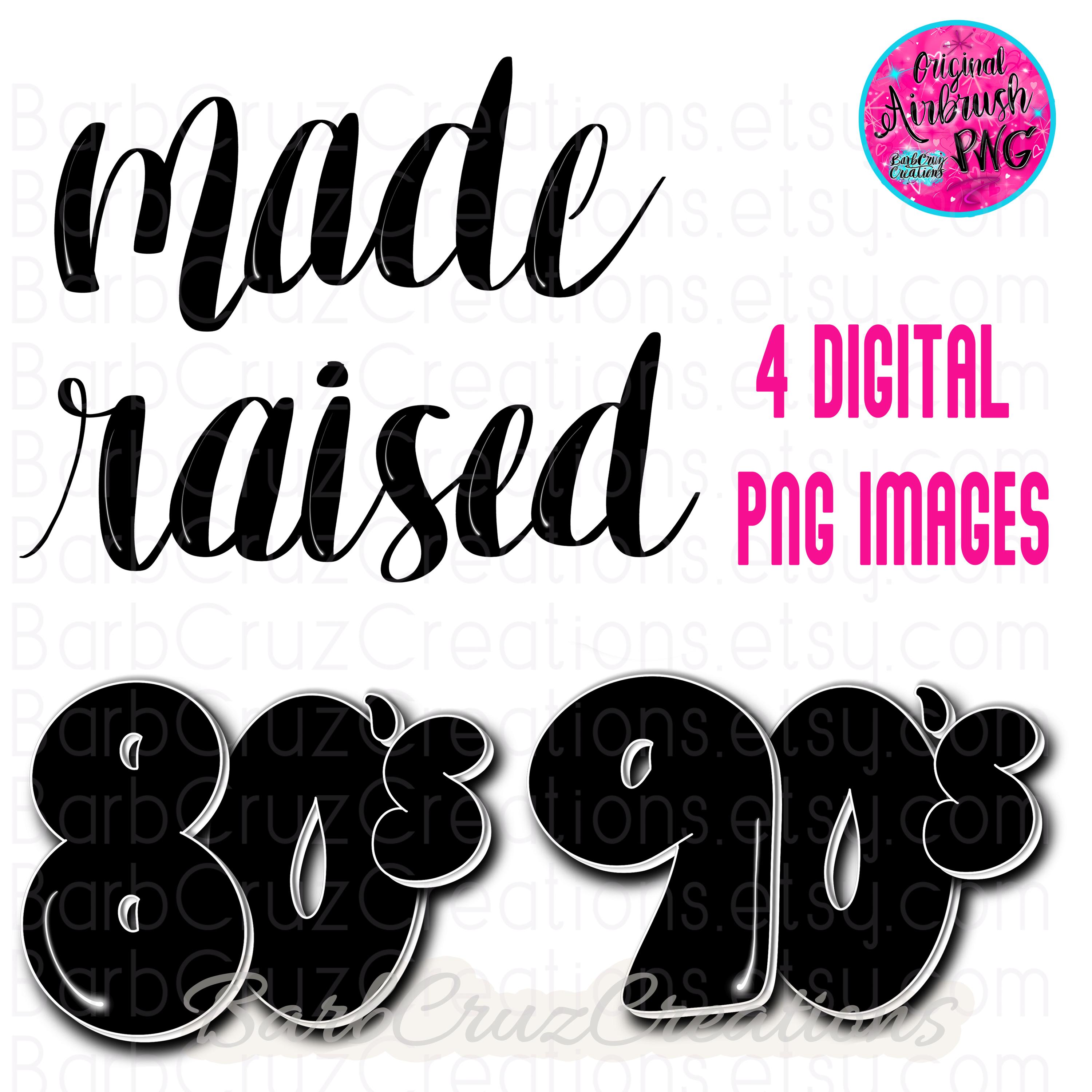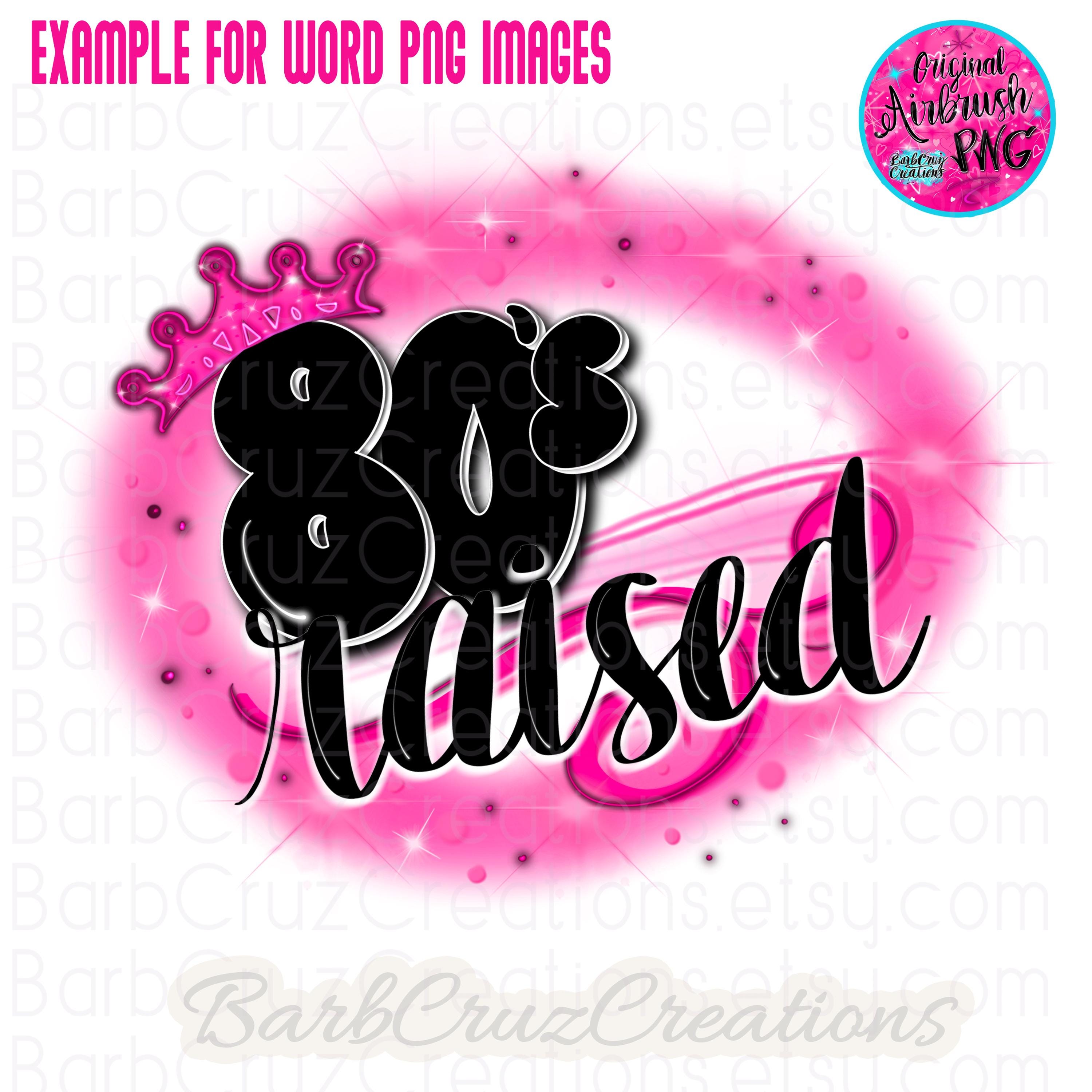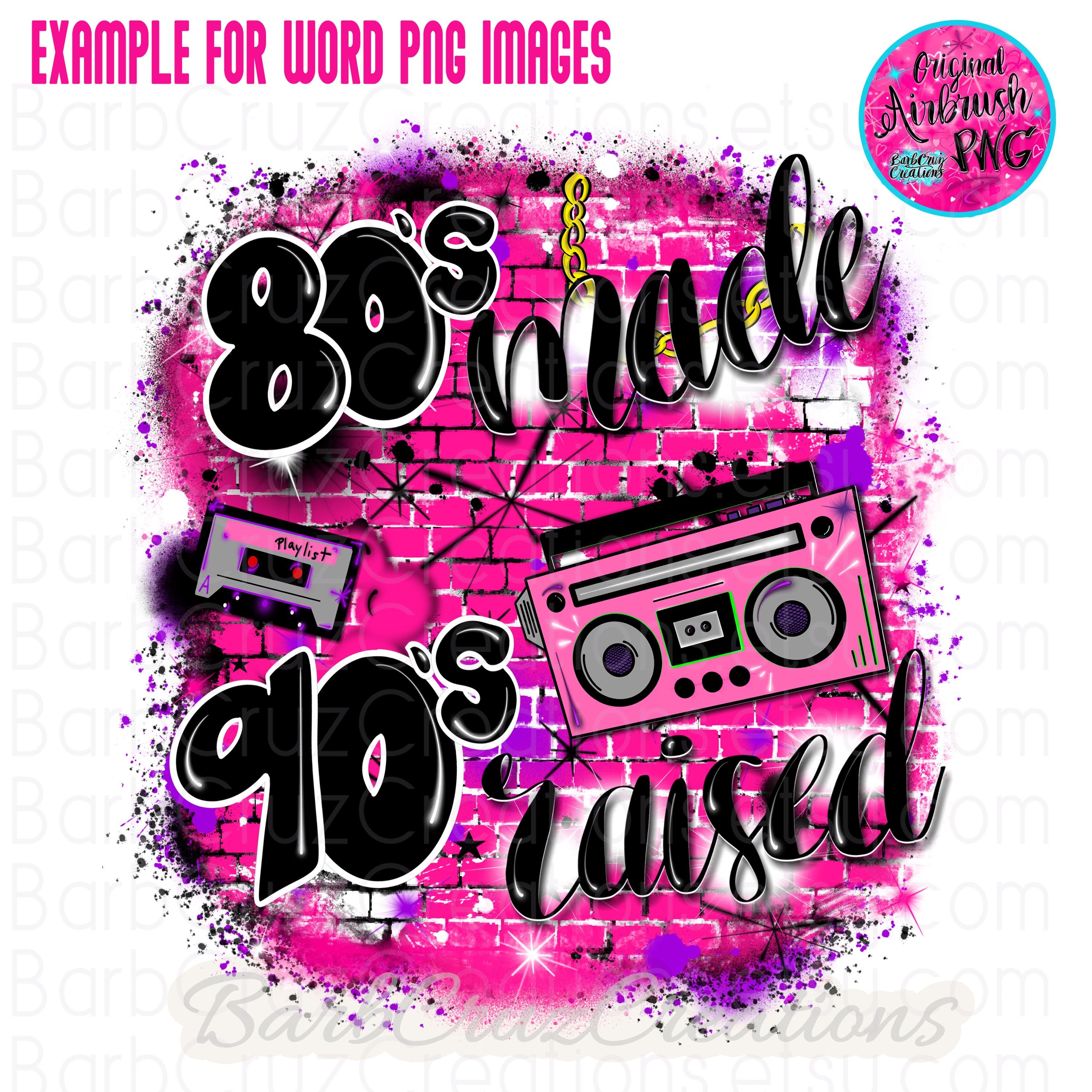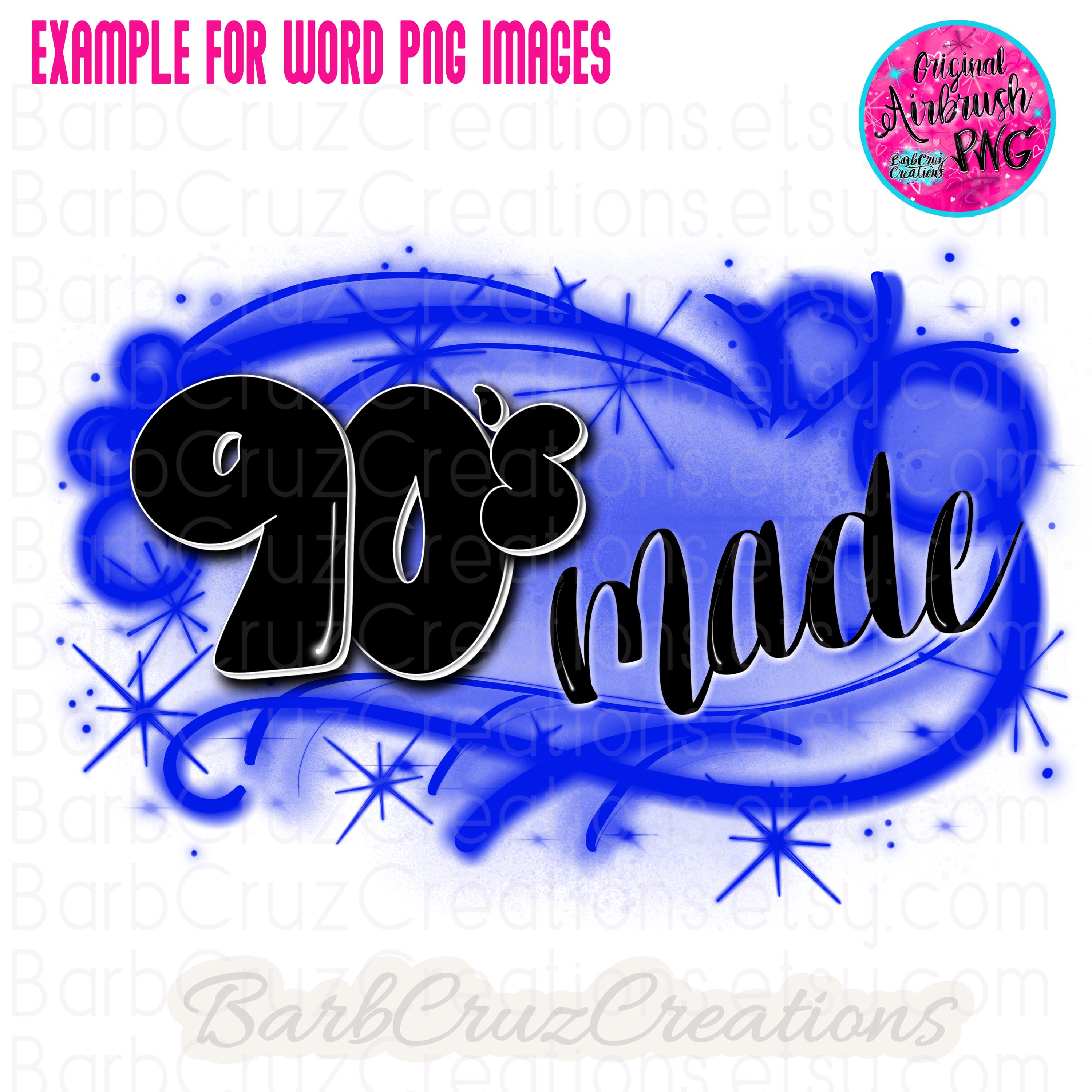
Airbrush Font, Graffiti Words Cursive, 80's, 90's, Raised, Made, Airbrushed PNG Images, Sublimation png, Cursive Letter Images, Hip Hop Art
Airbrushed Black 80's, 90's, made, raised png digital images plus a bonus brick blue wall
Add to a background use for airbrush monogram, a personal message, name, image to make a custom design in your design program.